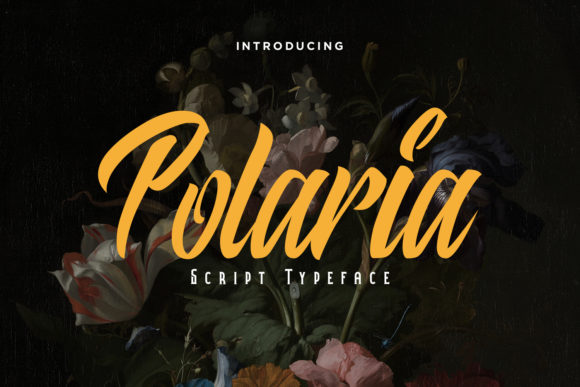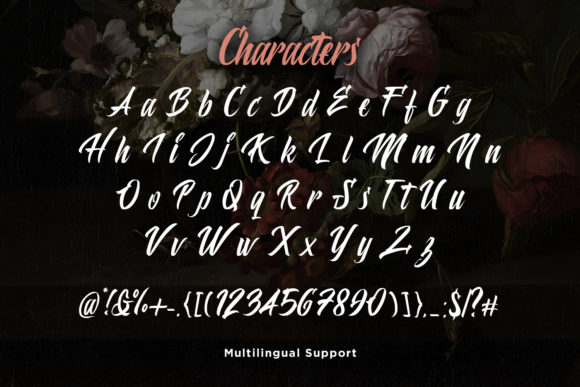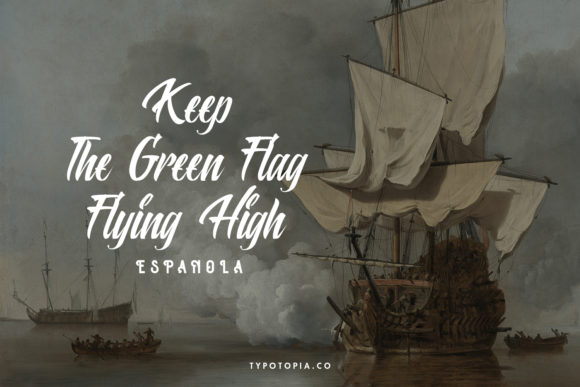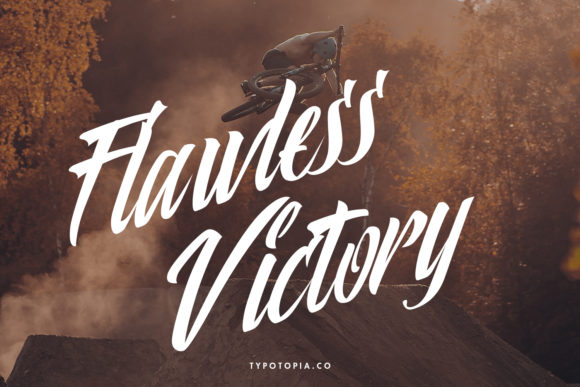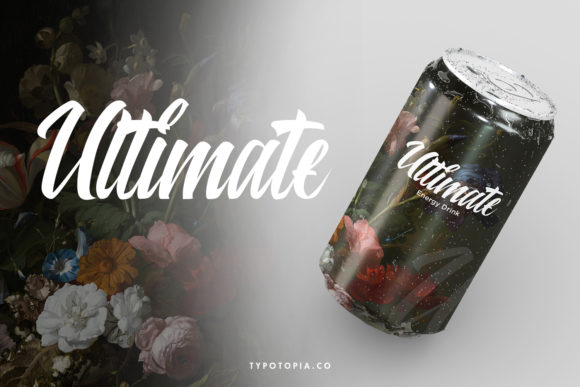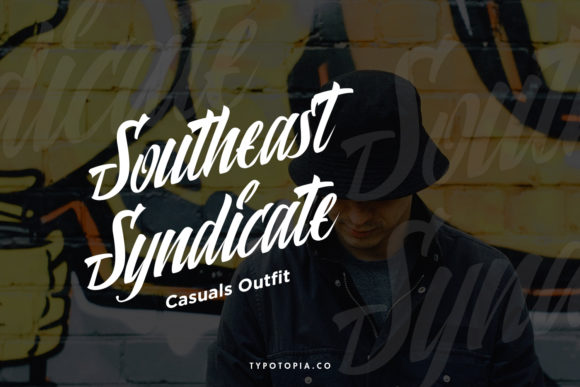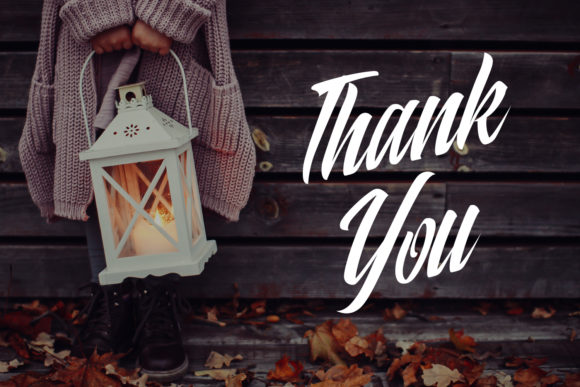
Polaria Font
About Polaria Font
Polaria is a thick lettered and flowing handwritten font. Stylish and strong lettered, this font will make each of your designs stand out.